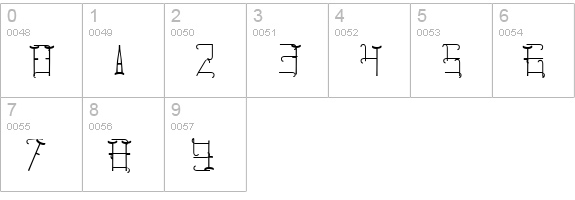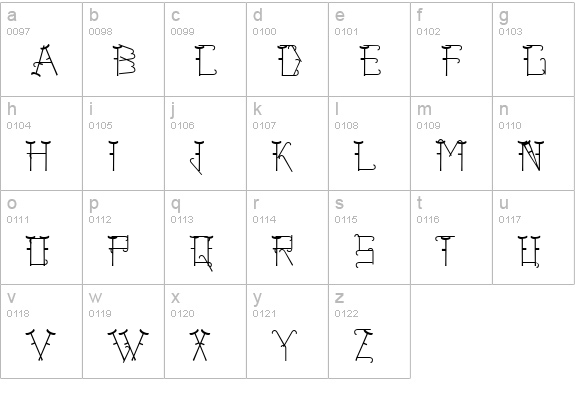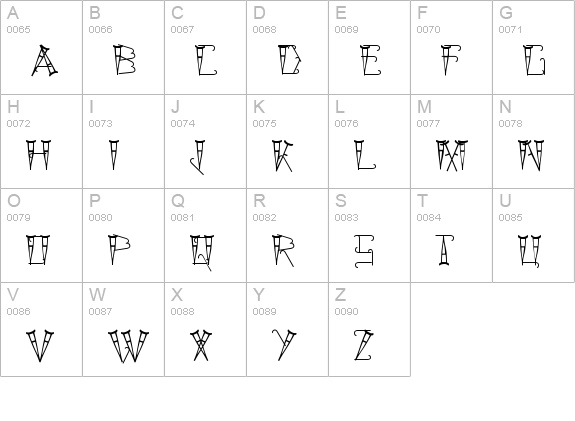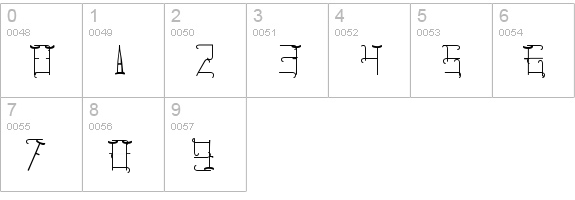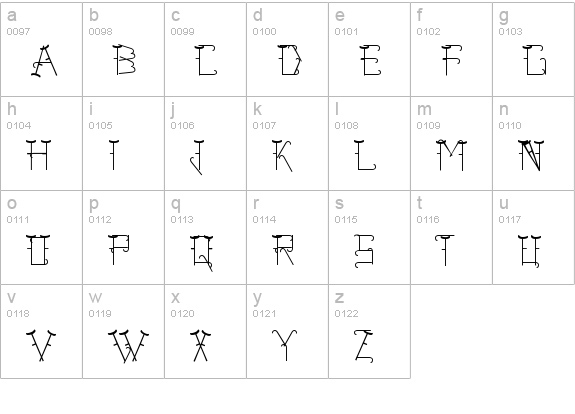
CrippledFont Font Details
Introducing CrippledFont - a unique and stylish font that will add a touch of creativity to your projects. This font features a modern and edgy design, perfect for making a statement in your designs. With its bold and eye-catching appearance, CrippledFont is sure to grab attention and leave a lasting impression. What sets CrippledFont apart is its versatility - it can be used for a wide range of design projects, from branding and advertising to social media graphics and website design. Its sleek and modern look makes it a perfect choice for any project that requires a touch of sophistication and style. Best of all, CrippledFont is available for free download at FontsMarket.com. This means you can easily access this unique font and use it in your projects without any cost. Don't miss out on this opportunity to enhance your designs with CrippledFont - download it today and take your designs to the next level!